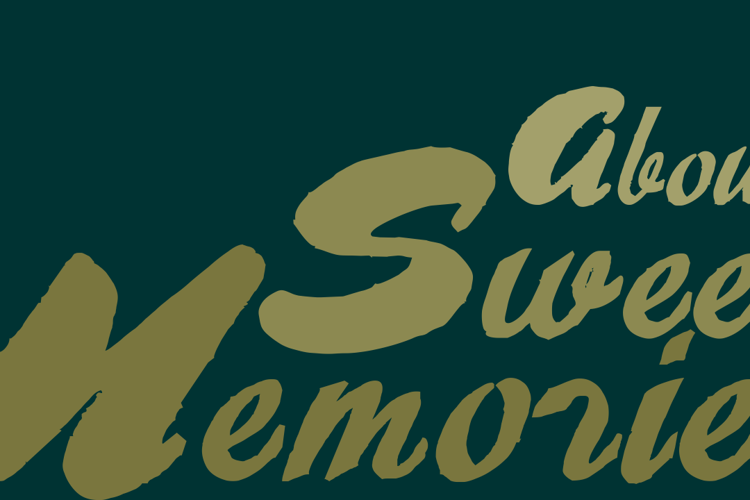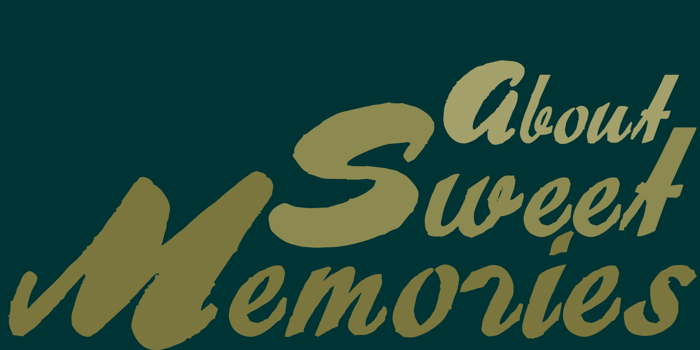
About Sweet Memories Font
About Sweet Memories Font is a Script font and was created on . About Sweet Memories Font has been downloaded 6,119 times, added to 89 collections, and liked 6 times.
It actually looks kind of Canadian to me 😉 Like any placename in Canada renders really nicely in this type.